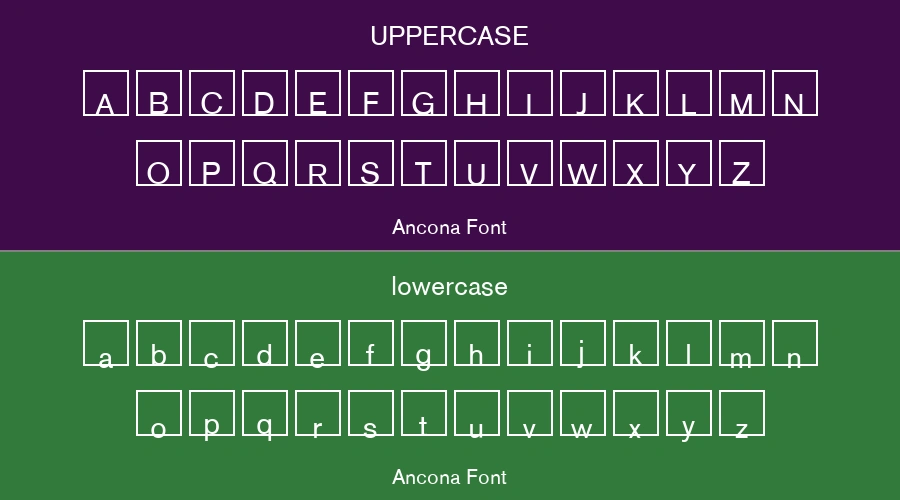
About Ancona Font
Designed with precision, Ancona Font merges organic forms with authenticity in every character. This versatility makes it particularly effective for marketing materials, where clarity and user trust directly impact communication quality. Each letterform demonstrates meticulous craftsmanship.
Technical excellence shines through elements like ink traps and beginning forms, enhancing typographic versatility. In formal invitations settings, Ancona Font proves its worth through superior file optimization. The thoughtful execution of ear formation and historical references ensures professional results.